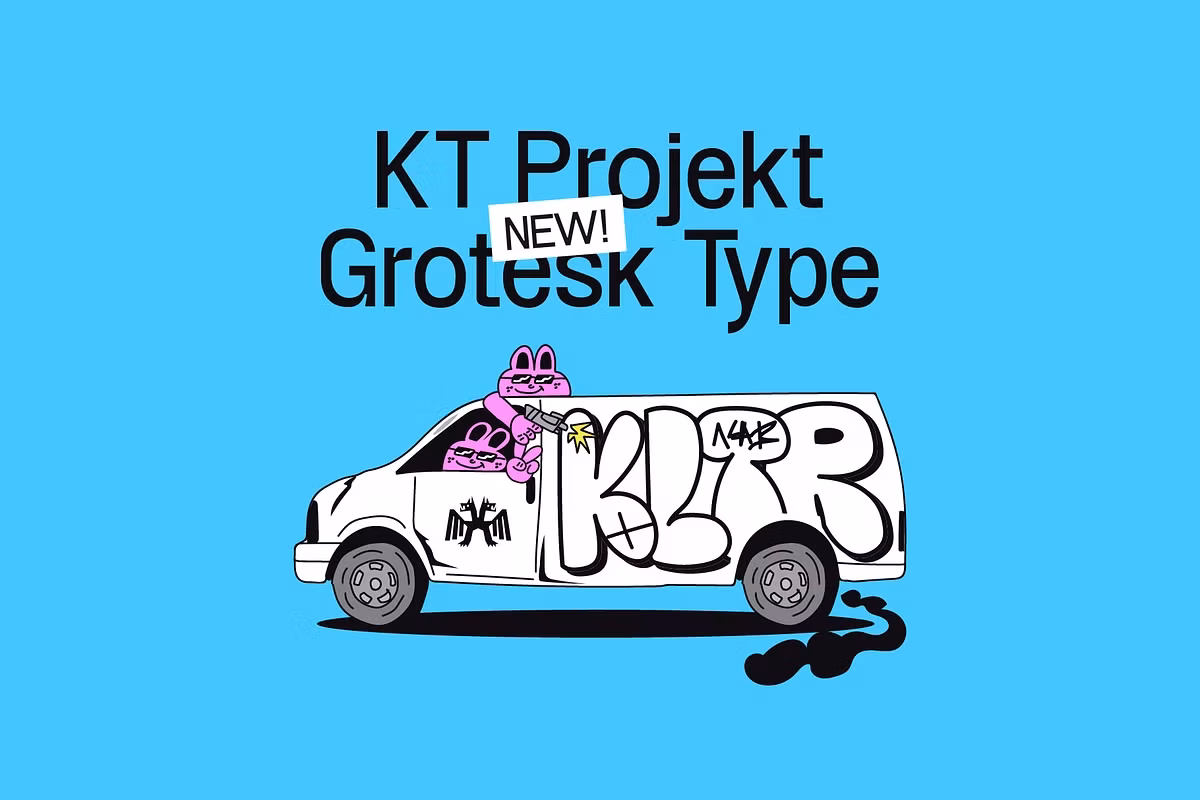
KT Projekt - Grotesk Type Font Free Download is a bold, modern grotesk typeface that merges industrial precision with clean minimalism. Designed for impactful headlines, sleek branding, editorial layouts, and contemporary web design, KT Projekt delivers clarity, versatility, and a strong typographic voice.
KT Projekt - Grotesk Type Font Free Download offers sharp structure and balanced letterforms, making it perfect for both display and body text in digital and print formats. Whether you’re designing tech interfaces or creating bold promotional material, this font brings a refined, professional look. Download it today and give your next project a clean, modern edge with KT Projekt.